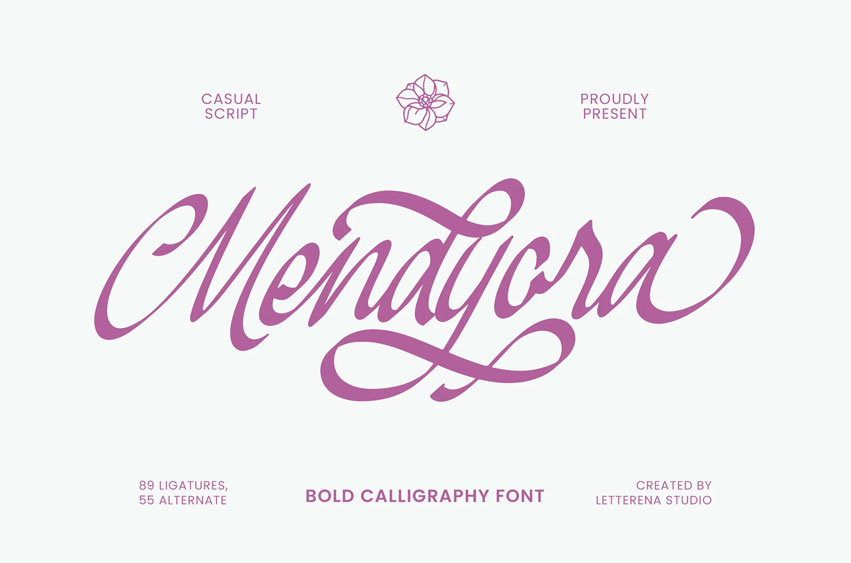
Mendyora Font is a bold calligraphy script font with elegant strokes and expressive curves, designed to add a luxurious handwritten touch to your projects. Featuring 89 ligatures and 55 alternates, this typeface is perfect for logos, invitations, posters, packaging, branding, and editorial layouts.
With its refined details and smooth calligraphic flow, Mendyora brings a timeless and sophisticated aesthetic to both digital and print designs.